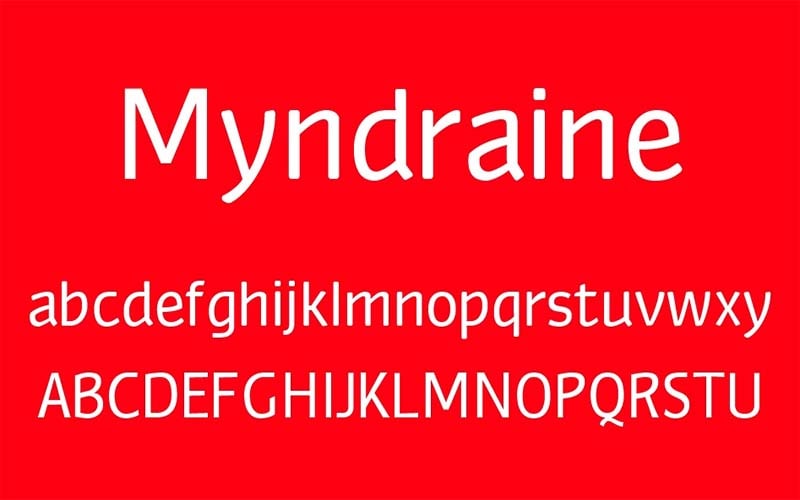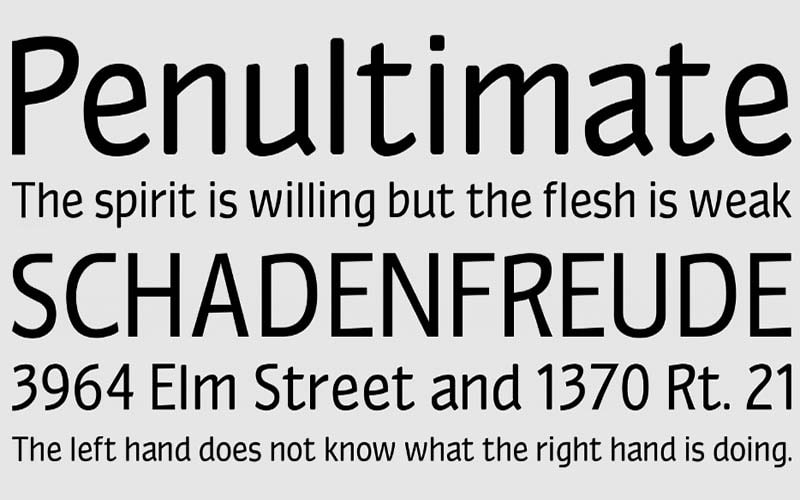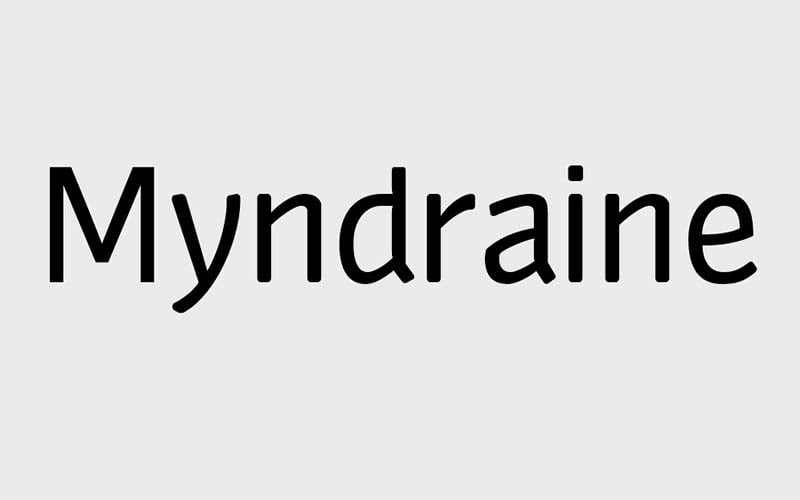
Myndraine Font is a royalty-free sans serif typeface that looks excellent due to its rounded and cursive clean appearance. This elegant font was designed by Christopher Miller.
The free font family has come in only one style including regular. If you are looking for a free display font with a beautiful and special unique texture style, then take a look at this font.
You can use it for multiple purposes such as best for poster crafting, ideal for designing logos, professional cards, birthday cards, invitations, brochure making, banner ads, and book cover designs.
Myndraine Font
Each character got the same first-class standard but one thing is permanent in all of them. The unmatched quality, therefore will definitely work better for both paper printing and web design.
This unique font family is based entirely on a modern sans serif font. Clear readable rounded corners make it ideal for delicate web and work incredibly well in any size.
and this beautiful font is still used by many different designers in many places. So, you can also use this remarkable font wherever you like and don’t forget to appreciate it. Use a good text pair to create splendid artwork.